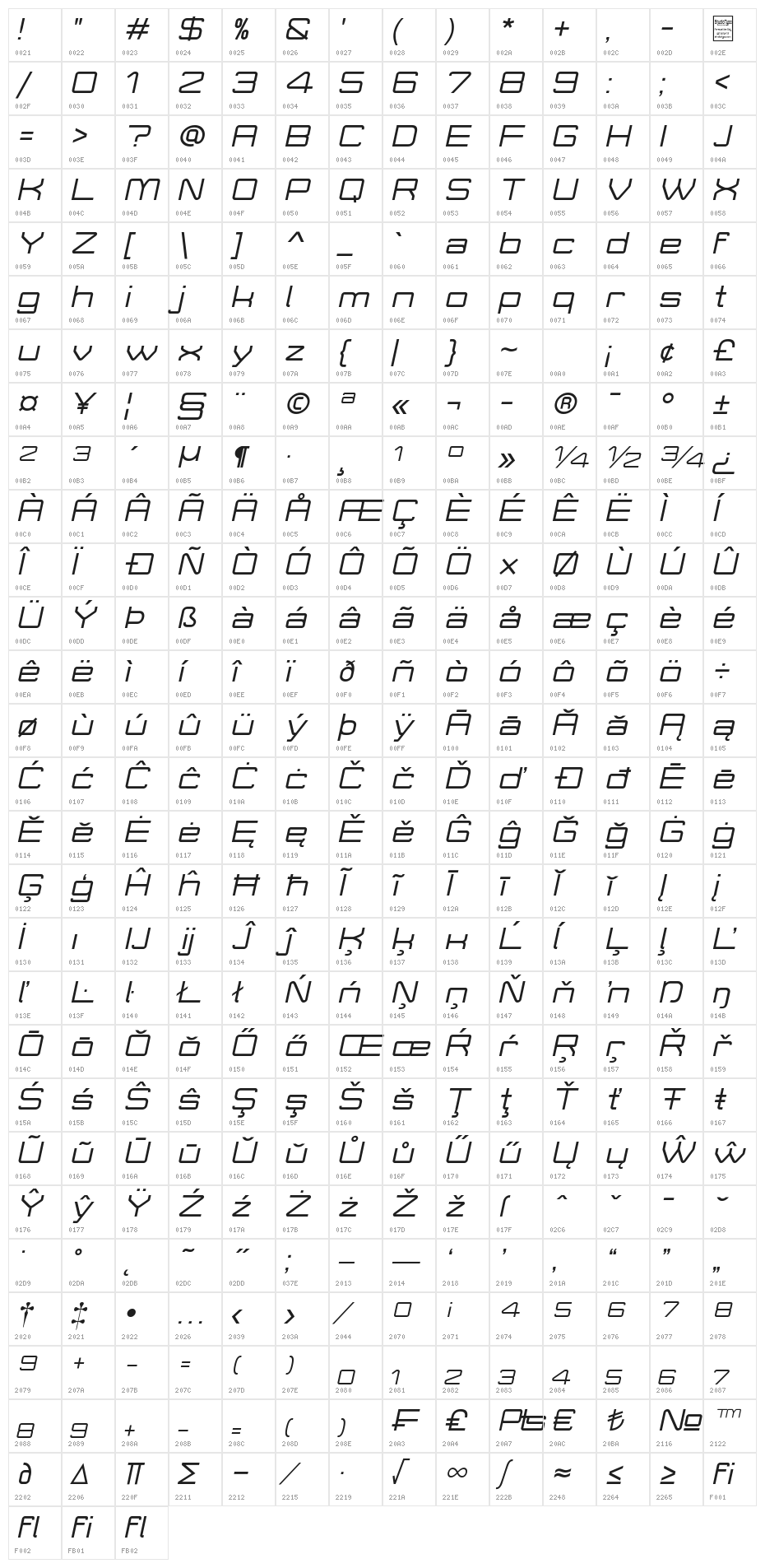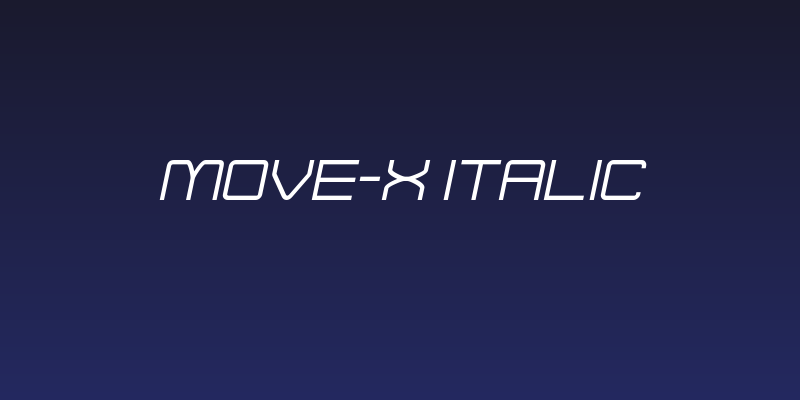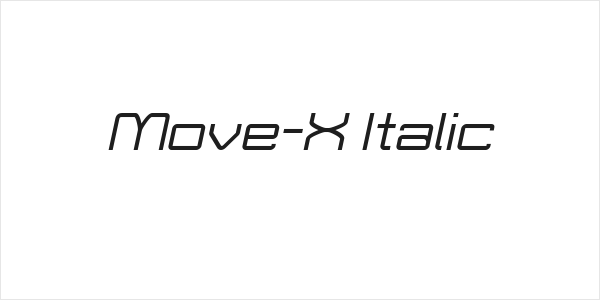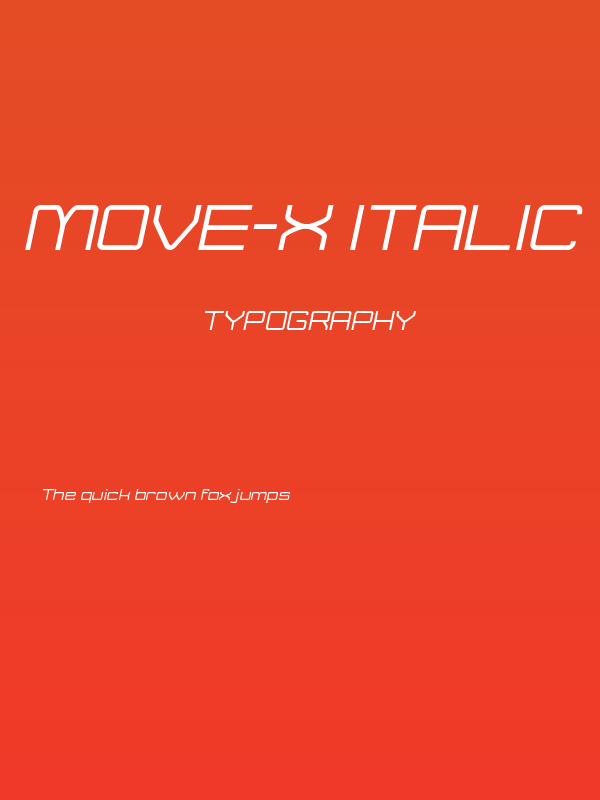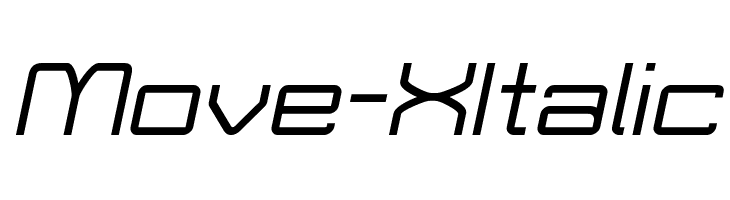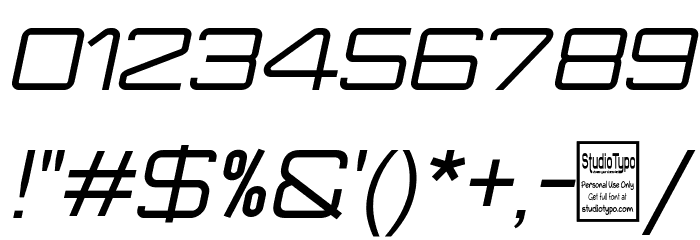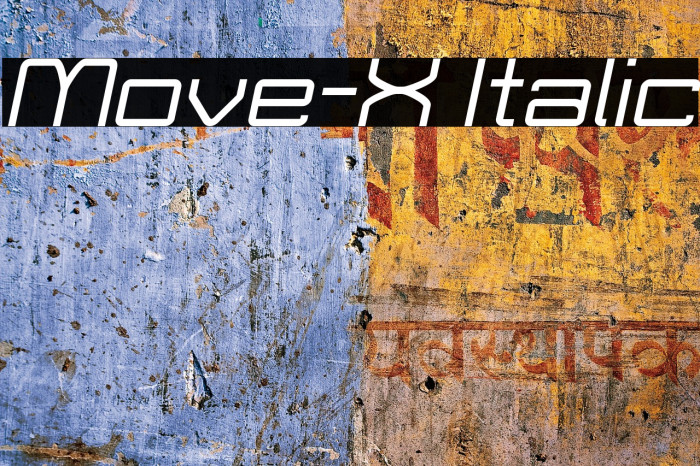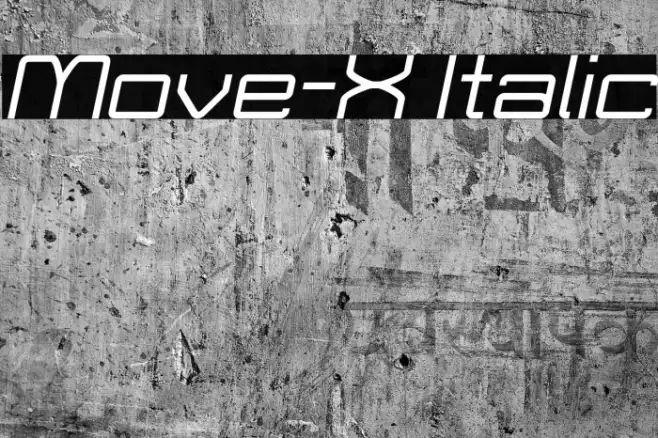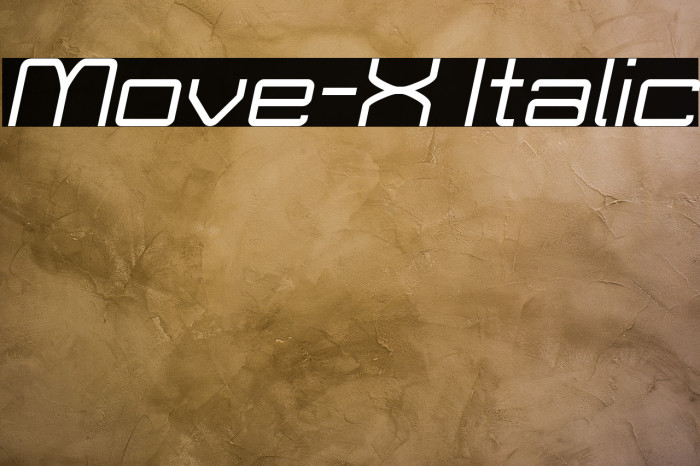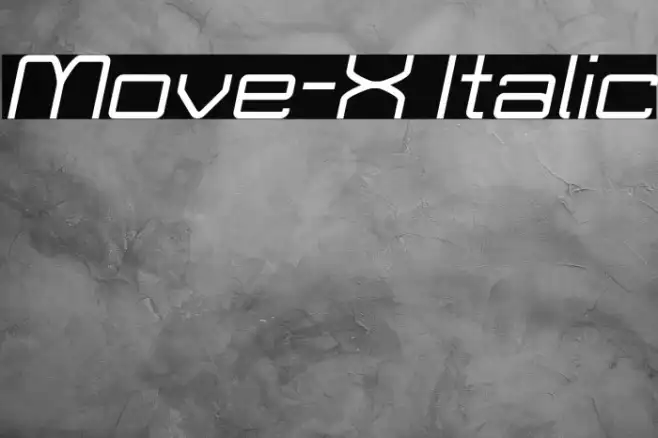
Move-X Italic Font
Move-X Italic Description
This font features a sleek, modern design with a distinct italic slant, giving it a dynamic and forward-moving appearance. The characters are crafted with a geometric precision, showcasing clean lines and rounded edges that contribute to its futuristic aesthetic. The uppercase and lowercase letters maintain a consistent style, while the numerals and special characters integrate seamlessly into the overall design. Its structure is both minimalistic and sophisticated, making it suitable for a variety of contemporary applications.
| Use Case | Headlines, Logos, Digital Interfaces |
| Proposed Projects | Ideal for tech branding, modern advertising, digital interfaces, and innovative product packaging. |